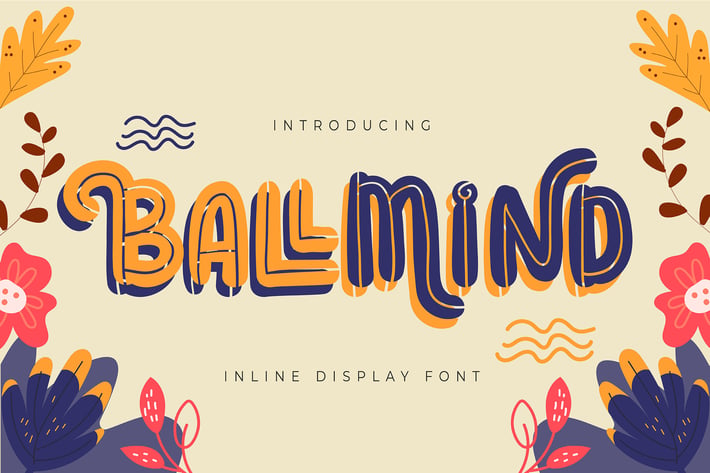
Ballmind | Inline Display Font
Ballmind | Inline Display Font with a calligraphy style, So beautiful on invitation like greeting cards, branding materials, business cards, quotes, posters, and more!